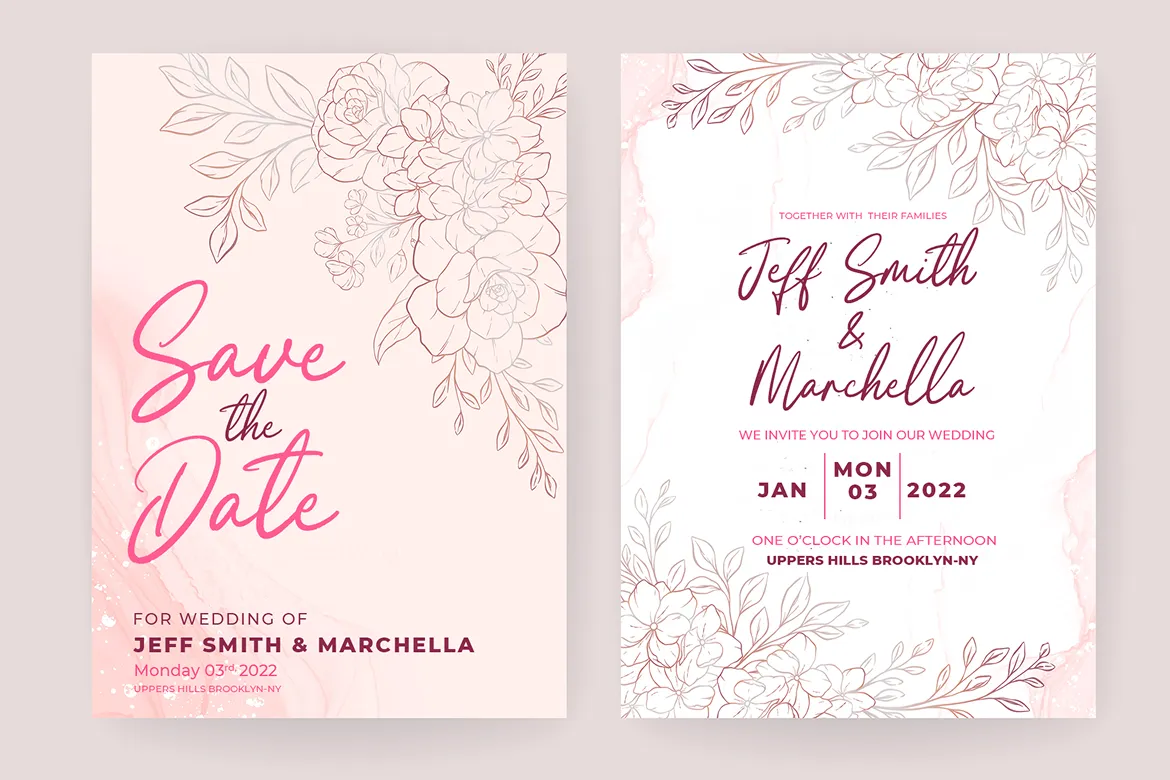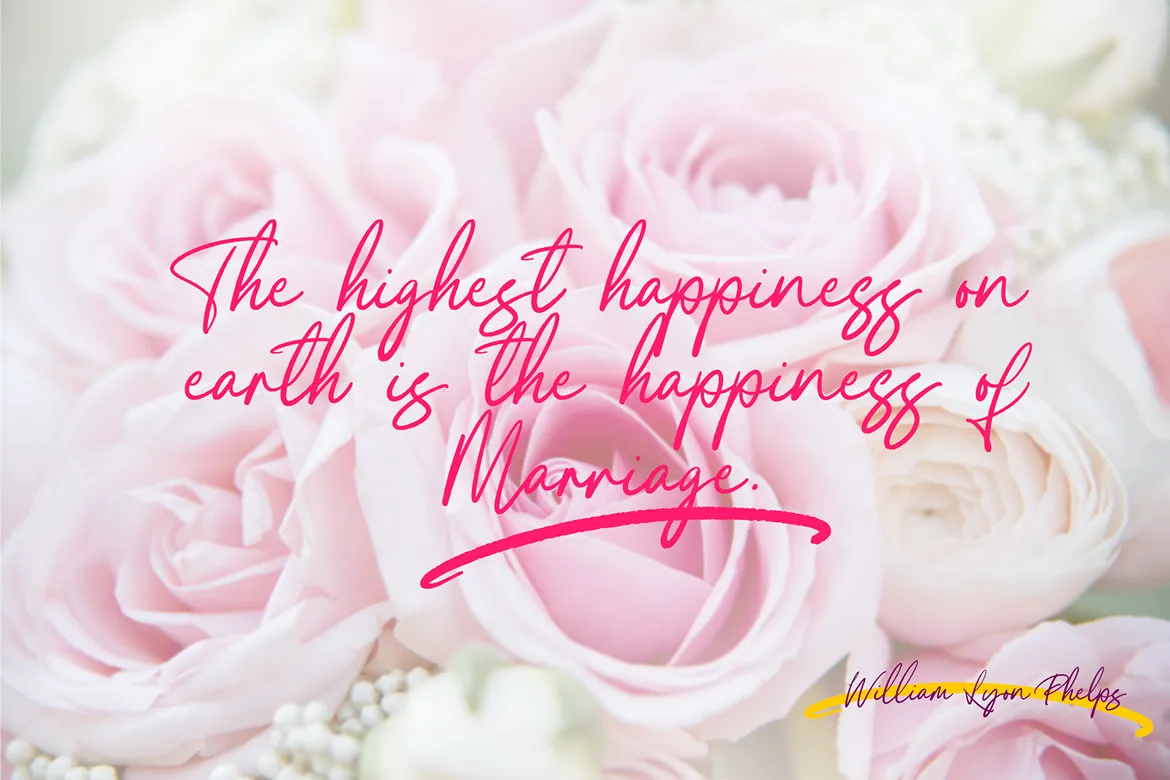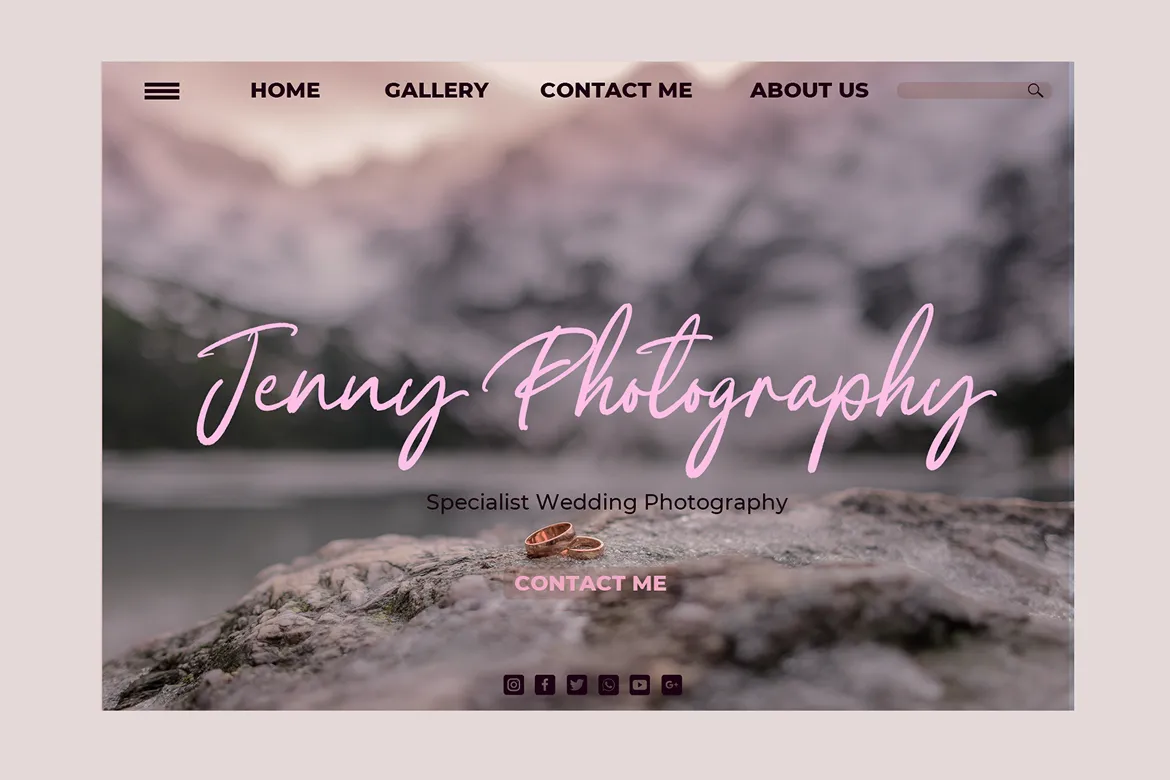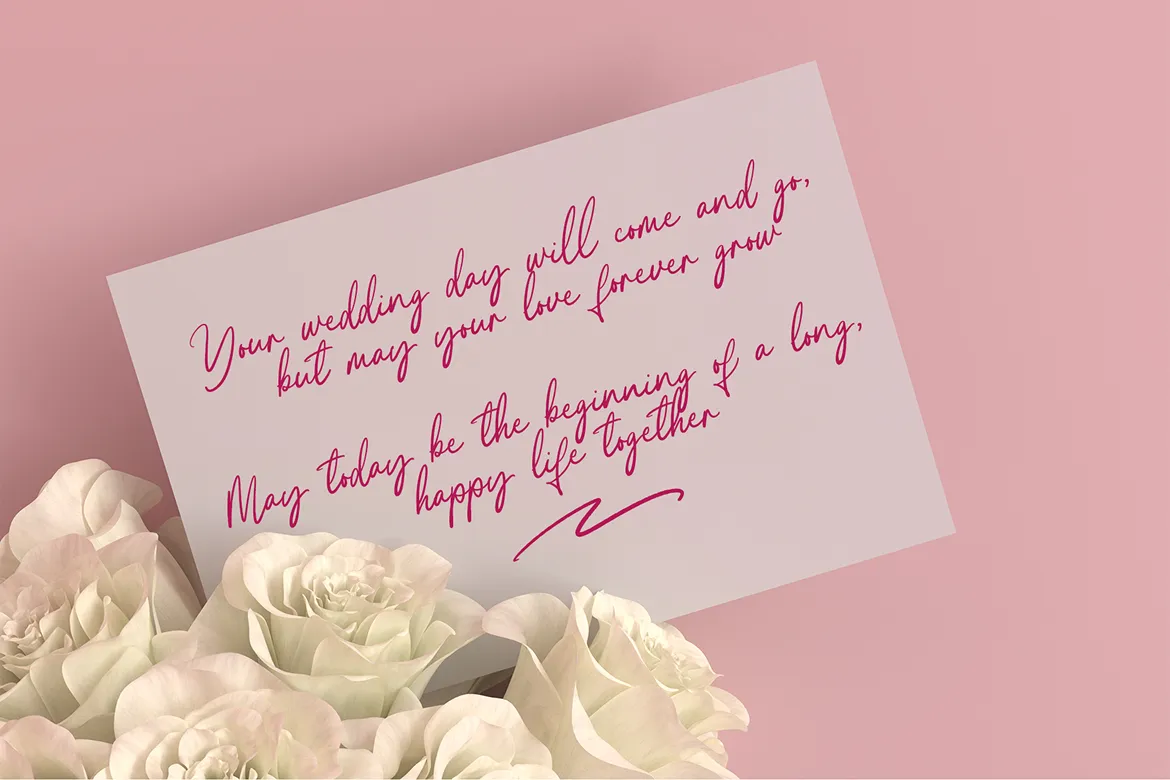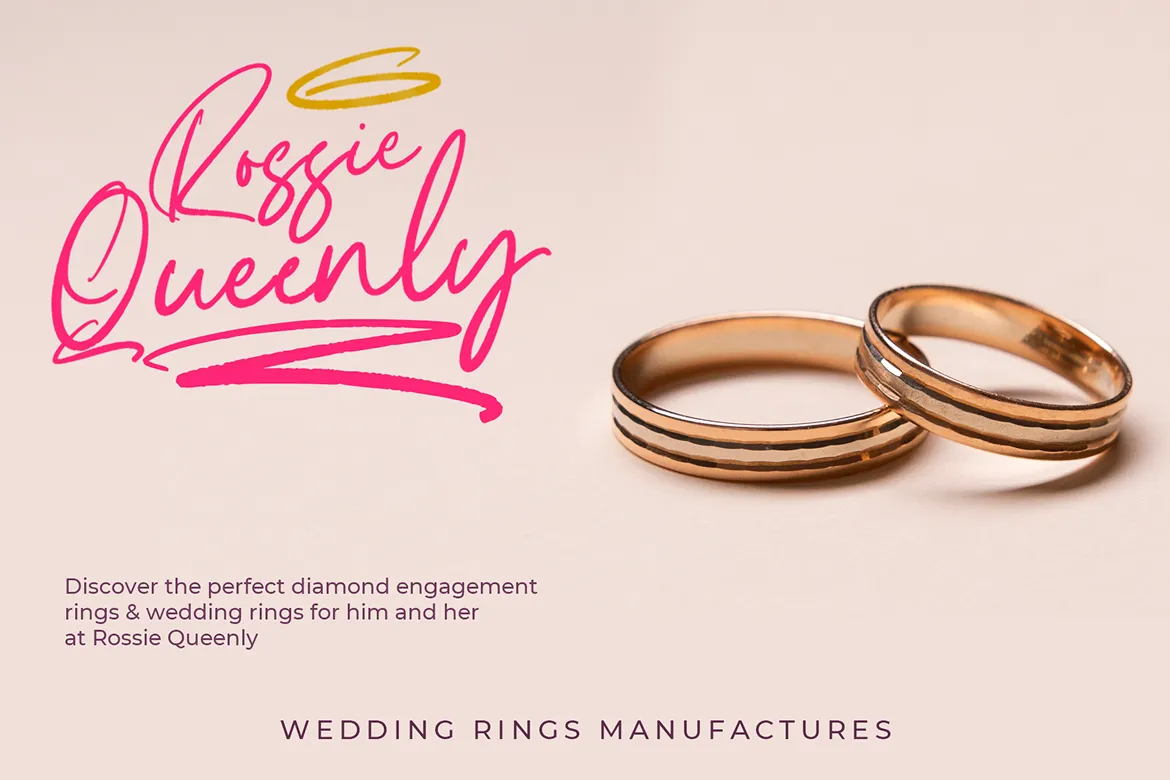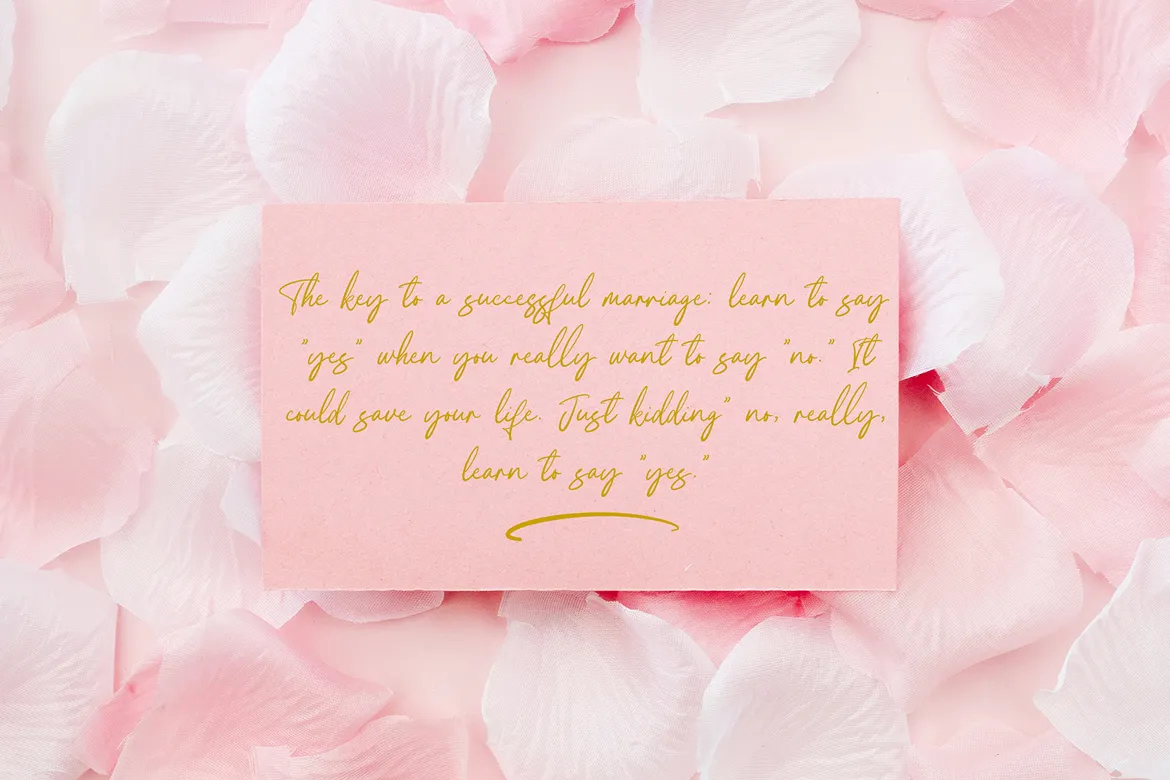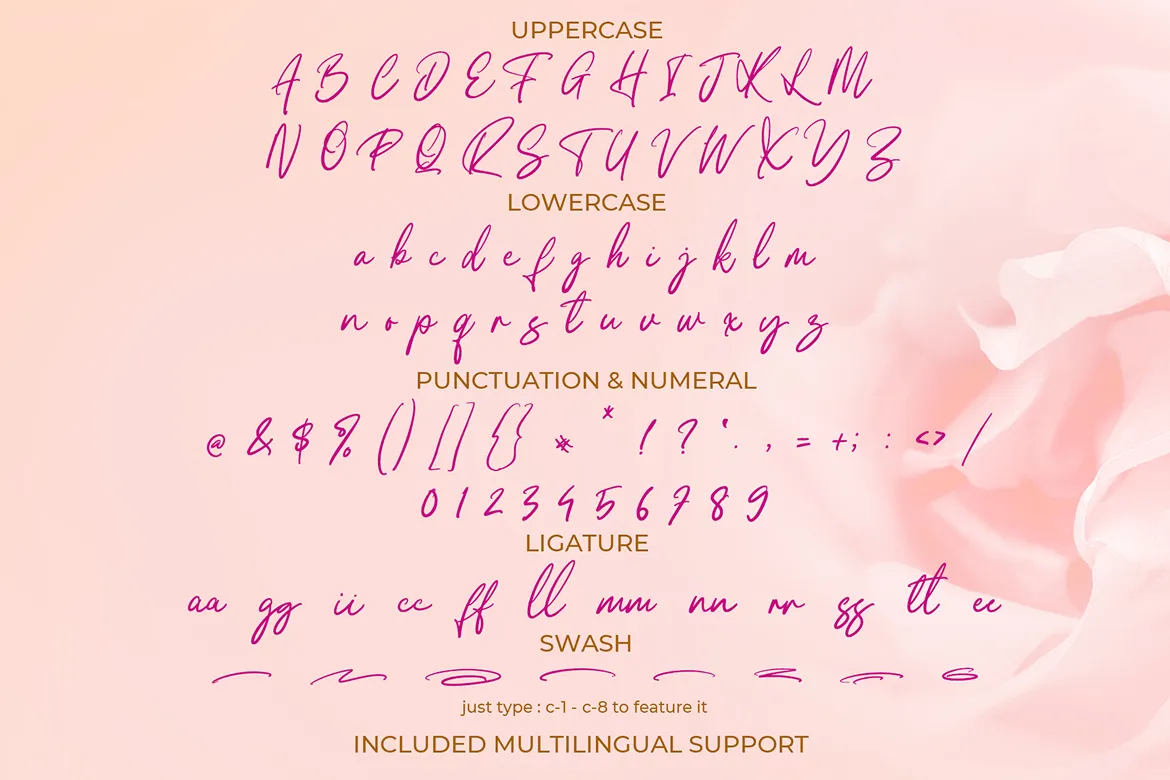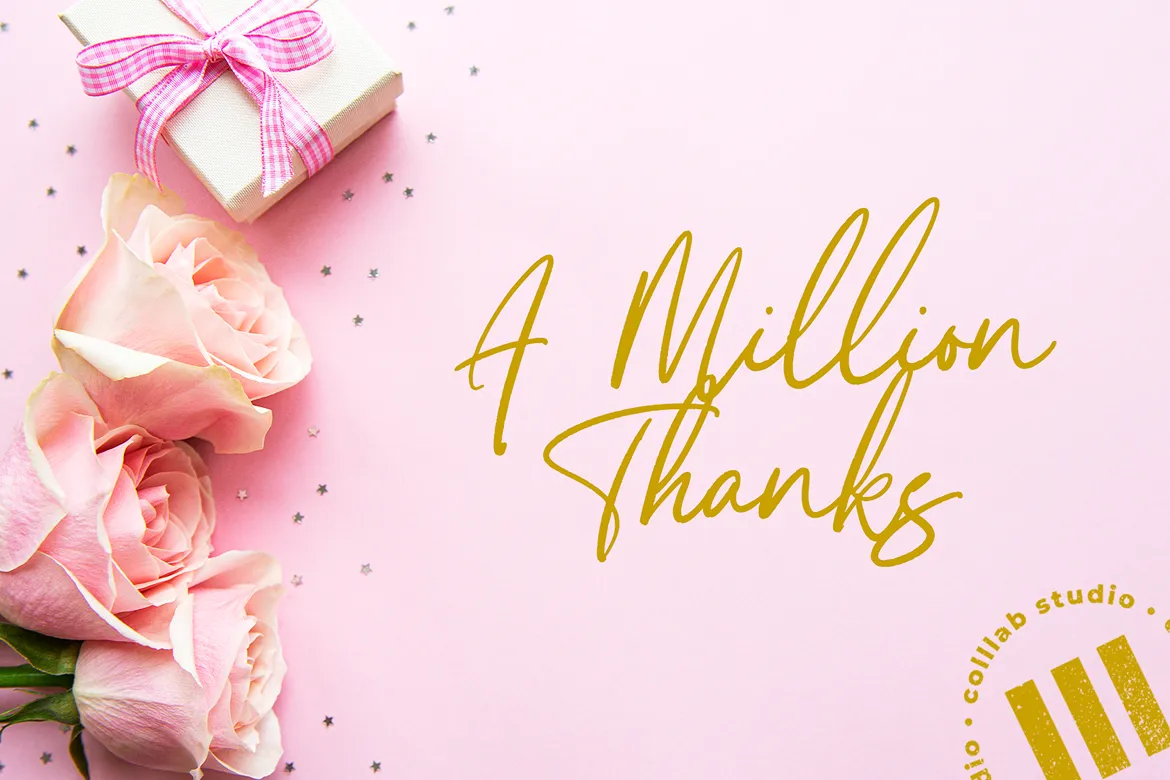
Shiny Hearts is a modern script font crafted with a handmade calligraphy style and a graceful irregular baseline. Its decorative strokes and flowing curves give it a romantic, feminine charm that makes it perfect for handwritten quotes, branding, merchandise, packaging, and social media graphics. This versatile font combines elegance with a playful touch, ensuring your designs capture both beauty and personality.
Inspired by heartfelt notes and the whimsy of love letters, Shiny Hearts embodies warmth, joy, and creativity. Its fluid lines and stylish swashes give every project an inviting and emotional appeal.
Uppercase & lowercase characters
Numbers & punctuation
Ligatures for smooth flow
Alternate glyphs & stylish swashes
Multilingual support